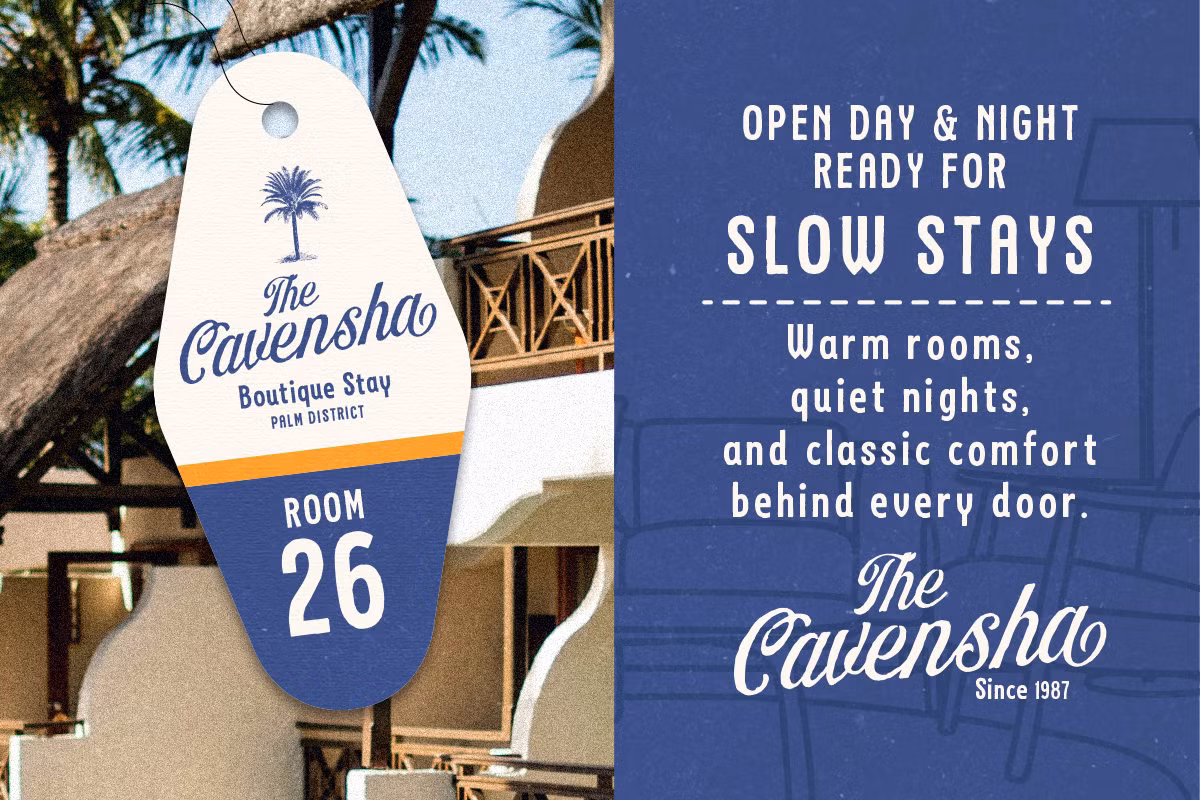
Barland: Handcrafted Font Duo for Vintage-Inspired Design Projects
Introduction to Barland
Barland is a carefully crafted font pair that includes a script and a sans-serif typeface, taking cues from traditional sign painting and vintage printing textures. This distinctive font combination allows designers to add a classic, handmade feel to their work, featuring smooth strokes and gentle curves in the script, paired with the crisp, organized lines of the sans-serif.
From branding and packaging to social media graphics, Barland brings a warm, retro vibe that can enhance your design projects, giving them a friendly and approachable character. With its unique blend of classic and modern elements, Barland is perfect for designers looking to add a touch of nostalgia and sophistication to their work. Whether you’re working on a new logo, a product package, or a social media post, Barland’s timeless style is sure to make your design stand out.
The way Barland looks is really old-fashioned and nice, it reminds you of how things used to be made with love and care. The letters are written in a fancy, curly way that looks like it was painted by hand, which is perfect for things that need to feel personal.
The gentle bends and tiny imperfections make it feel cozy and special, so your words don’t look like everyone else’s. The sans-serif typeface brings a clean and modern touch to the script, creating a nice balance that makes things easier to read without taking away from the script’s artistic style. This mix of styles makes it useful for many different types of projects, giving your work a unique and consistent look.
Character Sets and Font Features
Barland is designed with a comprehensive character set that includes both uppercase and lowercase letters, providing you with the flexibility to create dynamic text compositions. It also features a range of numbers and punctuation marks, ensuring that your designs can communicate effectively.
Barland is a pretty cool font because it has some extra features that let you get creative with your typography. For example, it includes alternates and ligatures, which can help you make your designs stand out even more. These extras can give your work a more personalized feel, making it look really unique.
Plus, the font supports lots of different languages, so it’s perfect for projects that need to reach people all around the world. This is especially useful if you’re working on a brand that needs to appeal to different markets or language groups – it helps your design resonate with everyone, no matter where they’re from.
Use Cases for Barland
Barland is really flexible and can be applied to many different kinds of design projects. Some of the most notable ways to use it include:
- Logos: Having a unique look is really important. The way Barland combines script and sans-serif fonts is a great example of this.
- Packaging: Whether you are designing labels for artisanal products or packaging for specialty goods, Barland can enhance the overall aesthetic.
- Posters: The expressive qualities of the script font make it an excellent choice for posters, allowing you to create eye-catching designs.
- Social Media Graphics: With the rise of digital marketing, Barland is ideal for social media graphics that require personality and professionalism.
- Branding Projects: The friendly retro character of Barland makes it suitable for branding projects that evoke feelings of nostalgia and trust.
When using Barland in your design projects, pairing the script with the sans-serif font can create a beautiful contrast that enhances readability and visual interest. However, for those looking to explore additional options, here are some pairing suggestions:
- Barland Script + Barland Sans: This natural pairing offers a balanced and cohesive look.
- Barland Script + Montserrat: The geometric shapes of Montserrat complement the vintage feel of Barland.
- Barland Script + Raleway: Raleway’s clean lines enhance the elegance of Barland’s script.
Experimenting with these combinations can help you find the perfect balance for your specific project needs.